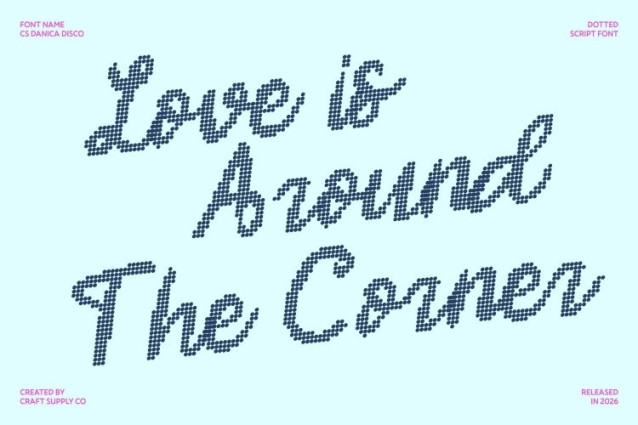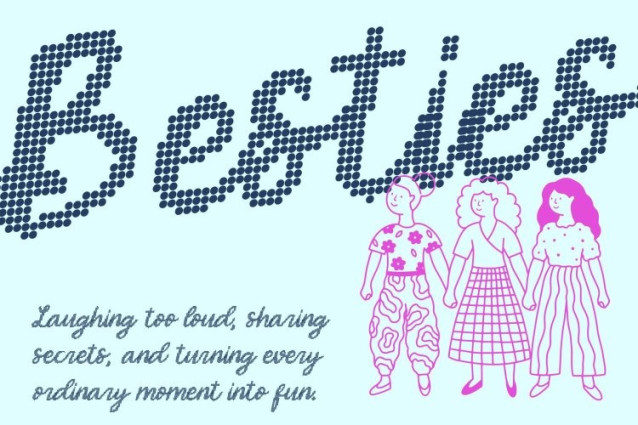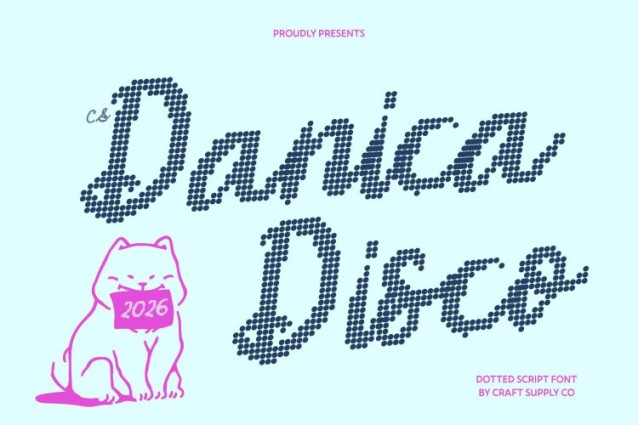
CS Danica Disco Font
CS Danica Disco Font – This is a delicate handwritten script font that blends graceful pen strokes with a lively disco-inspired dotted style. Its flowing connections and elegant curves maintain the refined beauty of natural handwriting, while the sparkling dot texture adds a vibrant and celebratory touch. The result is a script that feels both personal and visually captivating.
Creative Flourishes with Shimmering Detail
The font’s expressive flourishes and organic movement are enhanced by the disco-style dots, creating a subtle rhythm that brings every letter to life. Each character flows smoothly into the next, maintaining a harmonious handwritten rhythm while gaining a playful sparkle that adds depth and personality.
Elegant Style with Festive Energy
While soft and refined in form, this font carries a joyful visual energy through its dotted texture. This combination of delicacy and vibrancy makes the font ideal for designs that want to feel both elegant and expressive. It captures the feeling of handwriting illuminated by shimmering lights graceful yet full of life.
Perfect for Branding, Invitations, and Fashion Graphics
This font shines in branding, invitations, fashion graphics, packaging, and editorial layouts. It is especially suited for beauty brands, wedding stationery, lifestyle products, and boutique visuals that require elegance with a playful twist. The font adds a refined yet sparkling personality that helps designs feel memorable and distinctive.